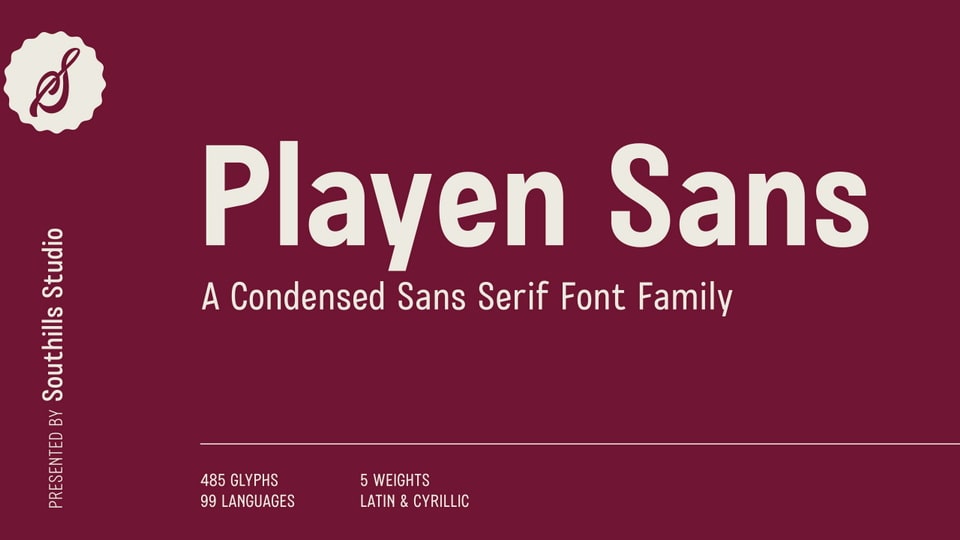
Download Playen Sans font, a sans serif font with a condensed style as an alternative choice for your typographic designs. Playen Sans font is a mix of classic and modern styles that is cleanly designed to remain functional, legible and universal.
Designer: Southills Studio